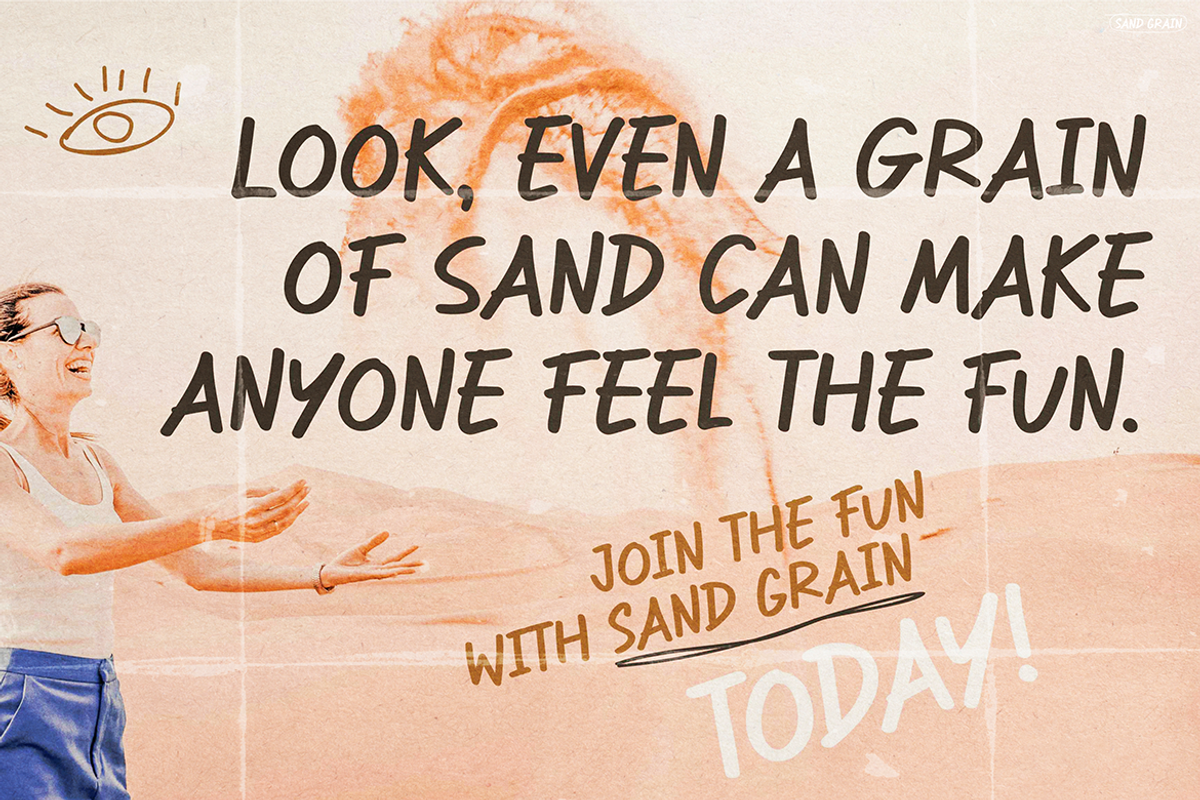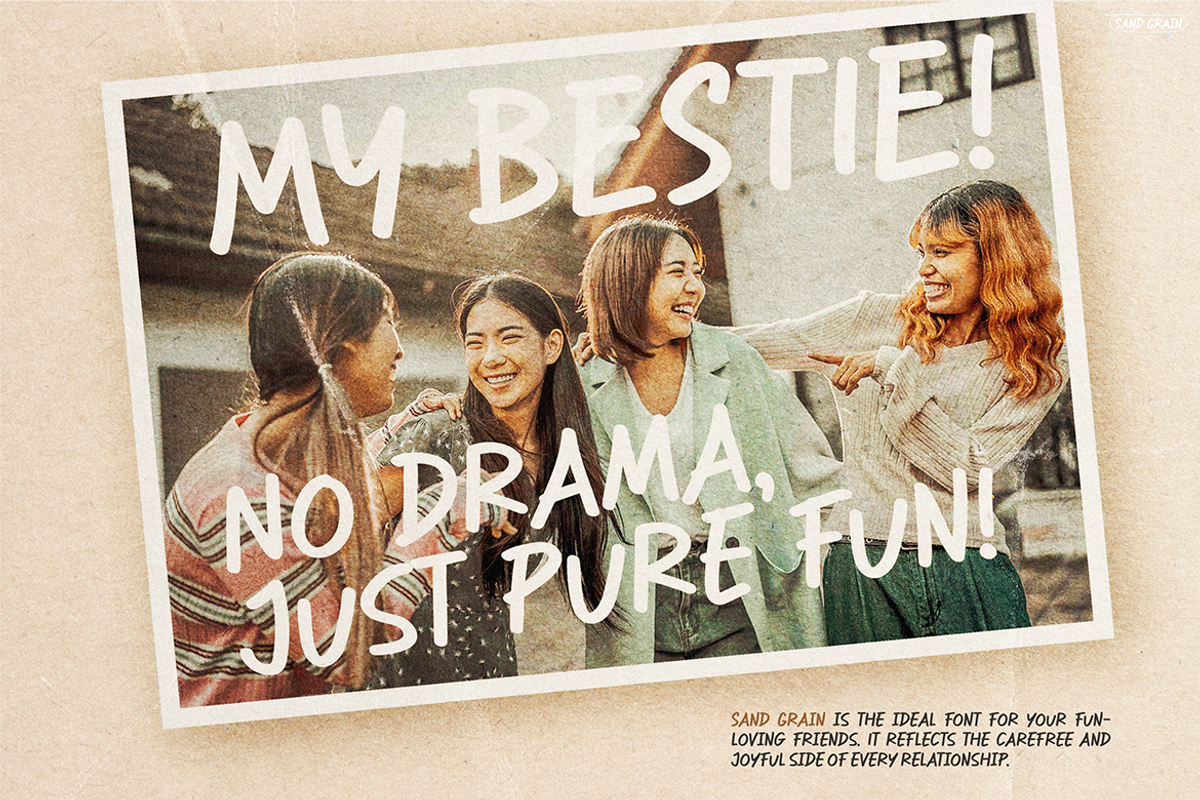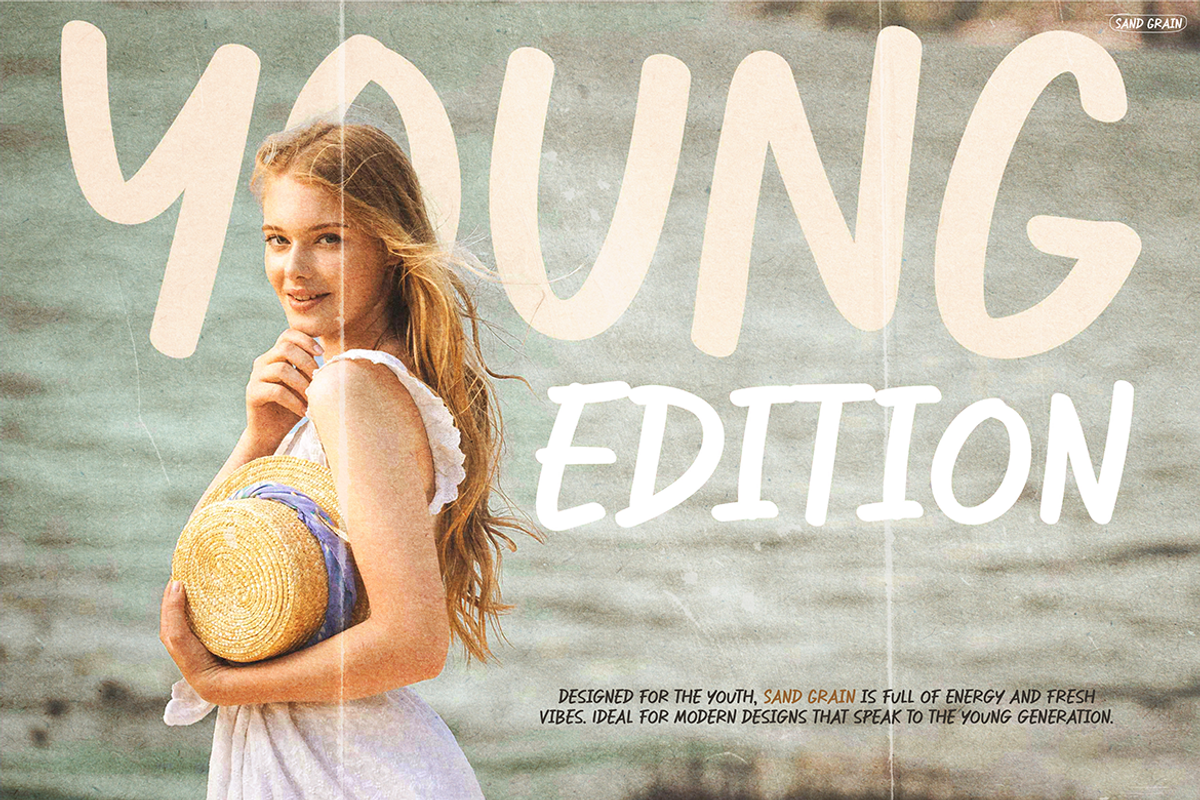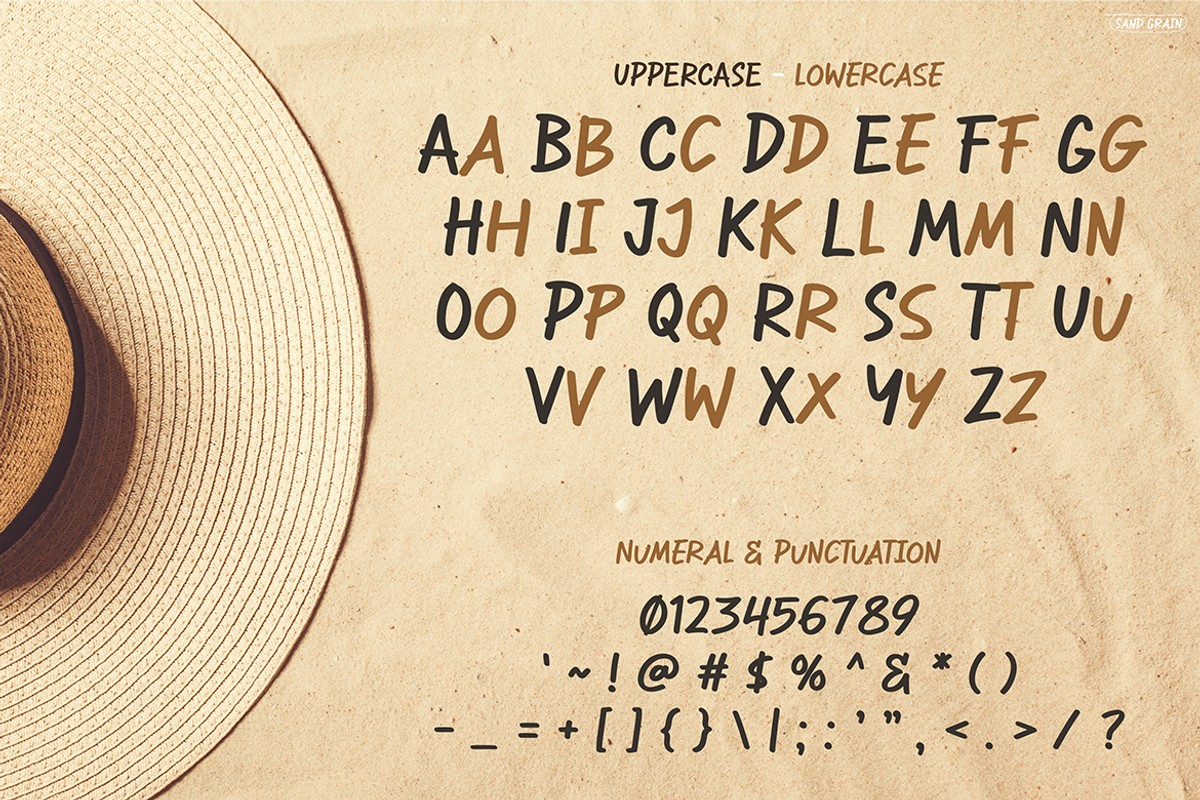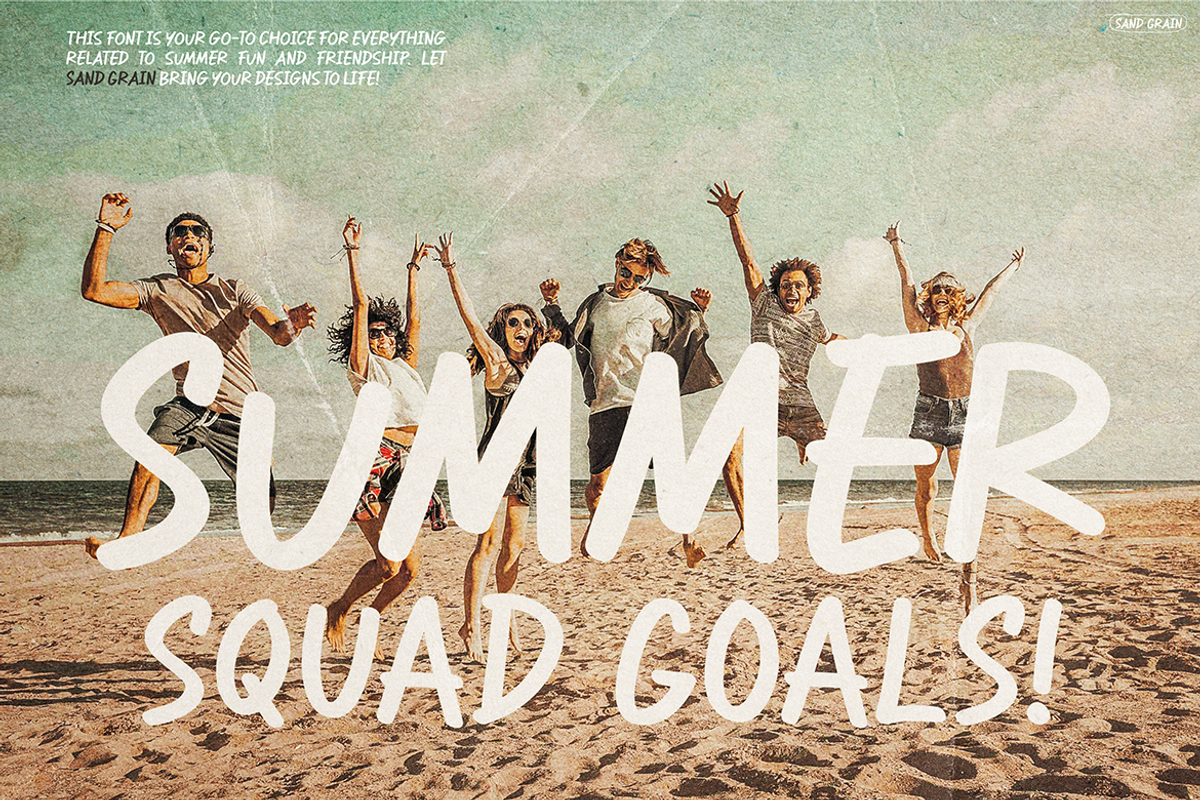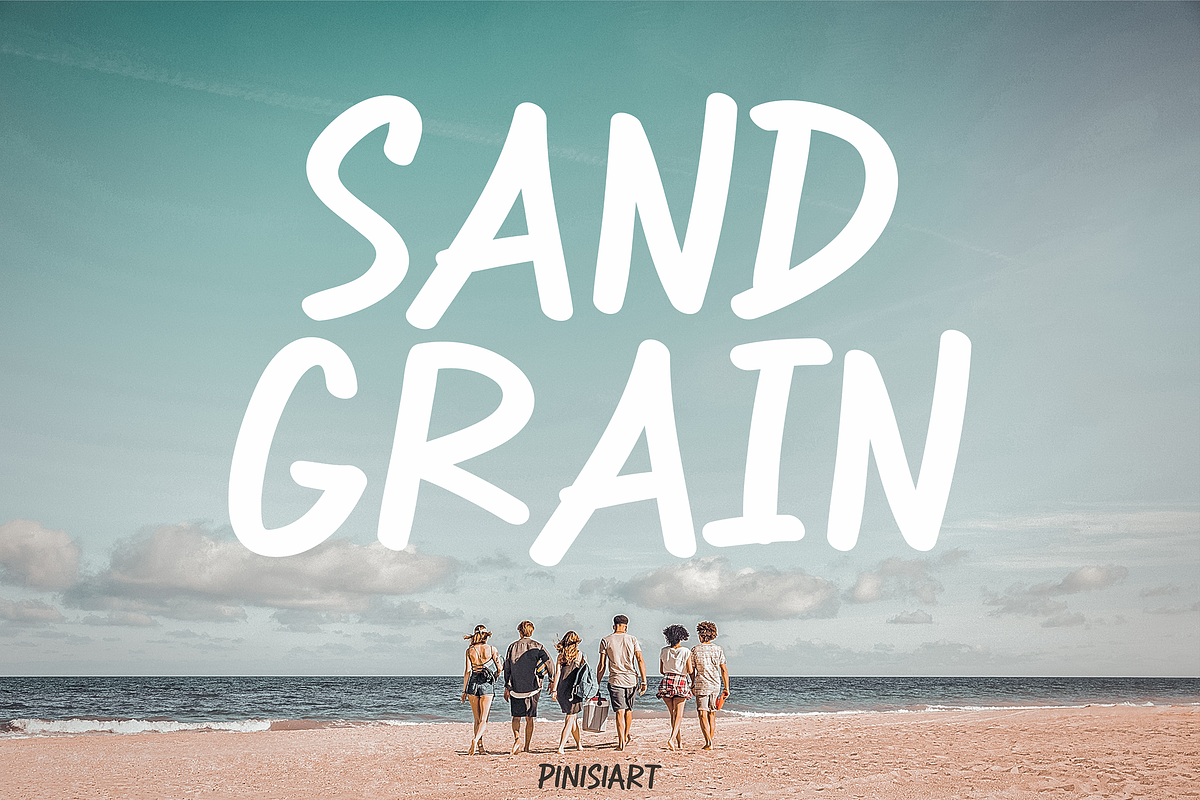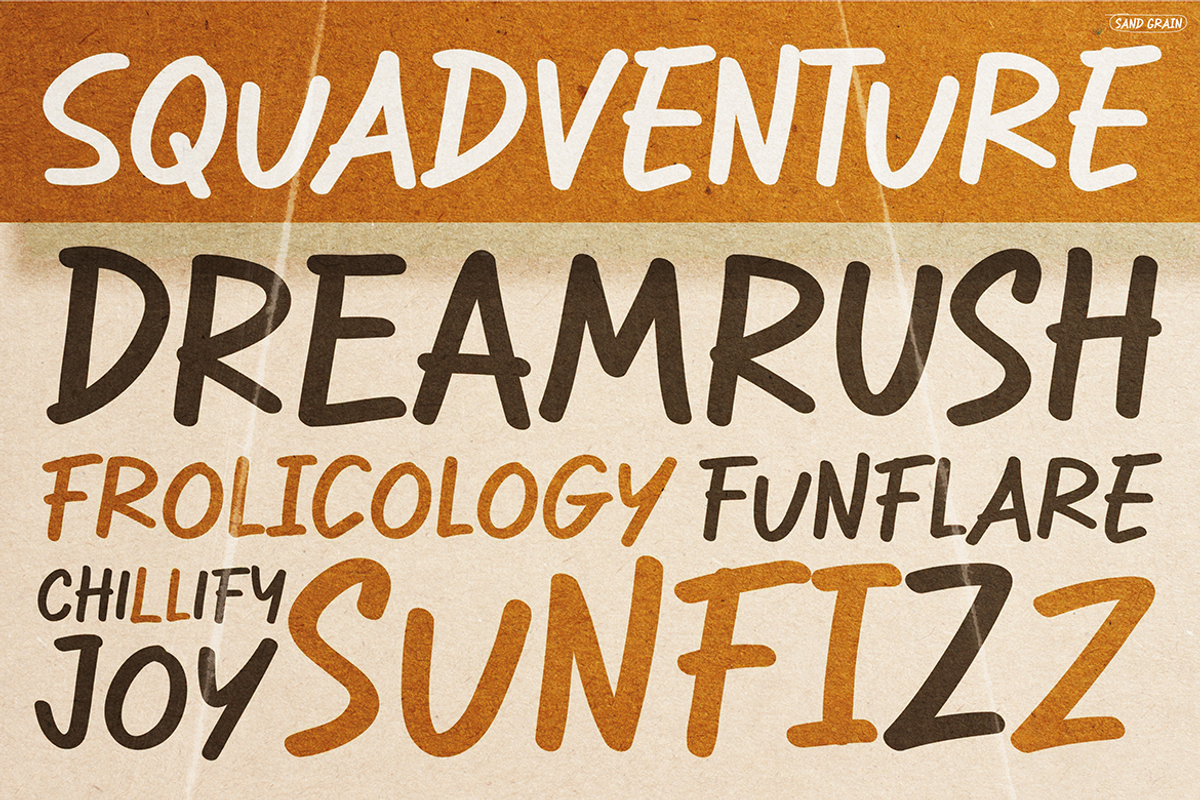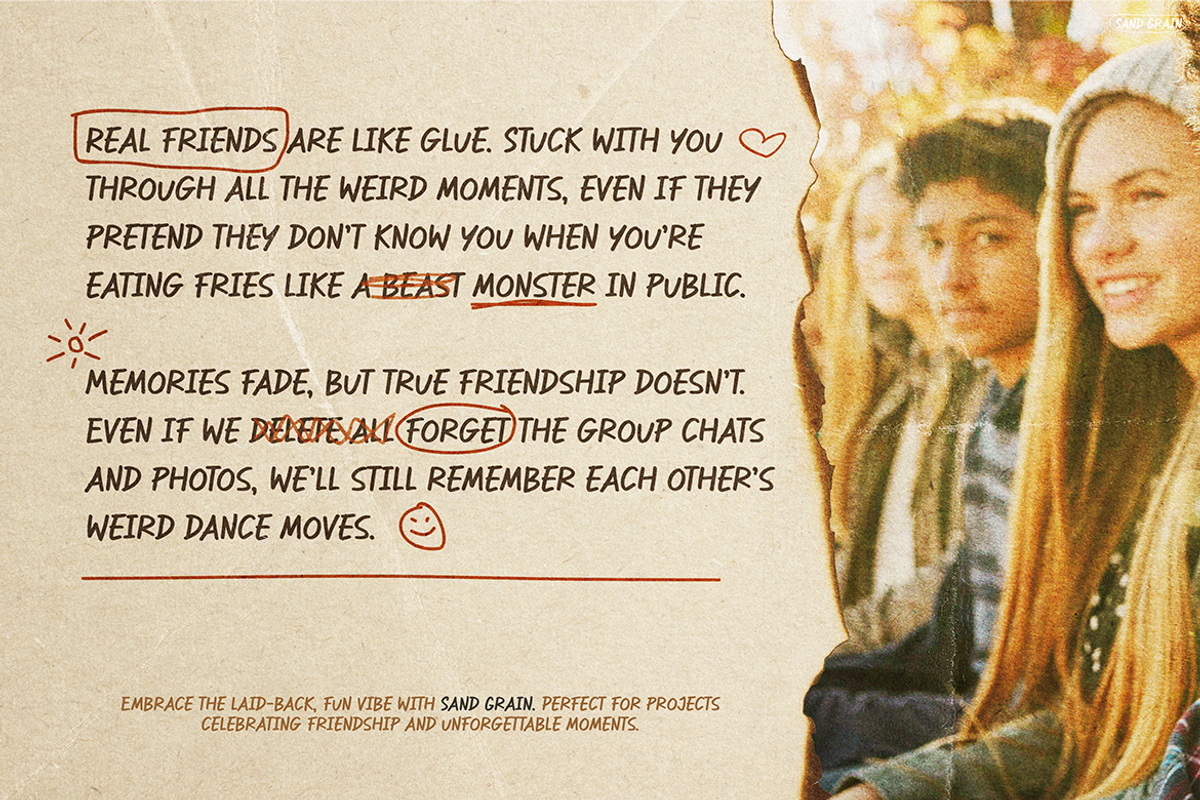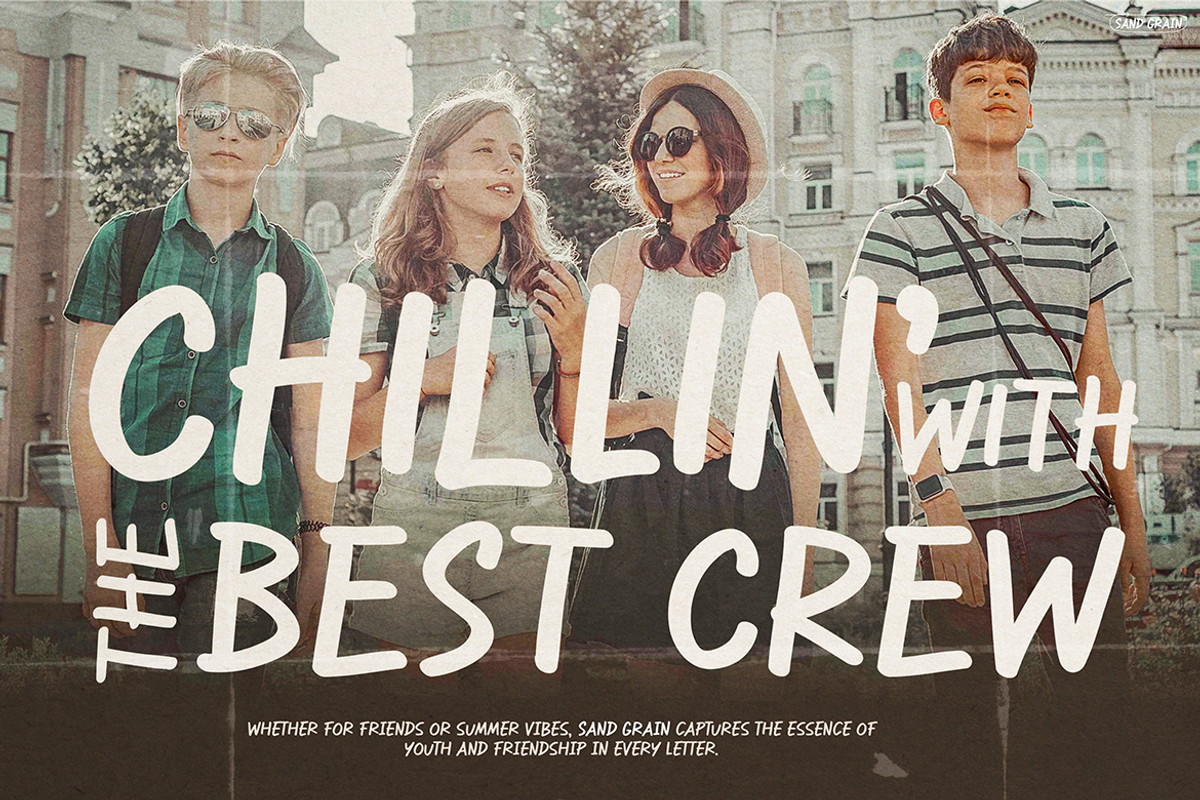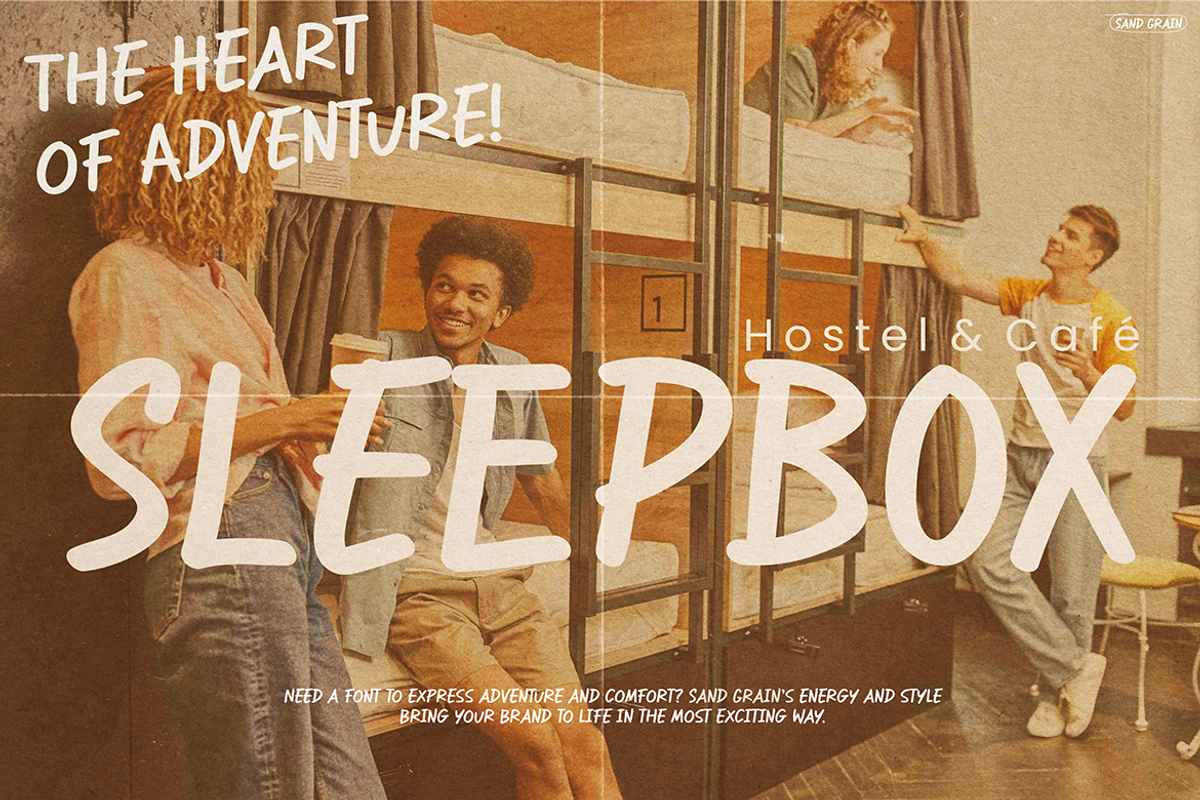
Sand Grain
Instagram Font SAND GRAIN – A Handcrafted, Nostalgic Font for Storytelling & Branding If you’re looking for a font that feels warm and authentic, Instagram Font SAND GRAIN is the perfect choice. With its textured, hand-drawn style, this typeface adds a nostalgic touch to any design. Moreover, its casual yet refined look makes it suitable for both personal and commercial projects. The slightly irregular letterforms create an effortless handwritten feel, making every word look natural and engaging.